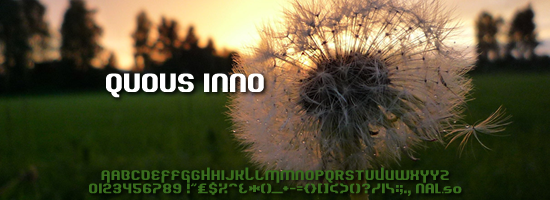
Inspired by, but ended up nowhere near like, the title card font for Ballykissangel. Capitals have ascenders/descenders, lower case is the same set of capitals but without those (since they don't look great in certain alignments), mix and match for the best visual effect. This font can be used completely free for anything and everything non-commercial. If you are to make money from whatever you use this font for (including from ad-revenue/other indirect sources), please donate any sum of money over PayPal to Andrew McCluskey (nal@nalgames.com). This can also be done directly through DaFont.com, see the link above. If you're using it freely and do wish to donate, I highly appreciate it, but it's not necessary. Email nal@nalgames.com if you have any inquiries about the licensing, donations, or also if you do get use out of the font and feel like showing me where you've used it - again, this is not obligatory, but I always appreciate and enjoy this kind of support! |